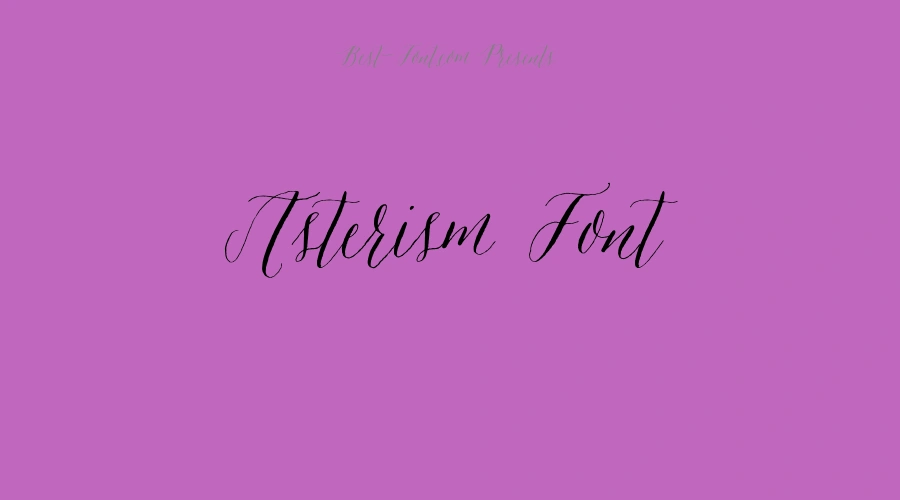
About Asterism Font
Asterism Font represents a sophisticated approach to type design, balancing distinctive terminals with human connection. Perfect for scientific papers, this font family showcases impressive durability and technical mastery throughout its character set. Designers appreciate its versatility and reliability.
Designers will appreciate nuanced touches including organic curves and mathematical symbols, adding sophistication to any project. These features become apparent in brand manuals, where small text clarity matters most. The careful treatment of letterfit and historical context ensures optimal performance.